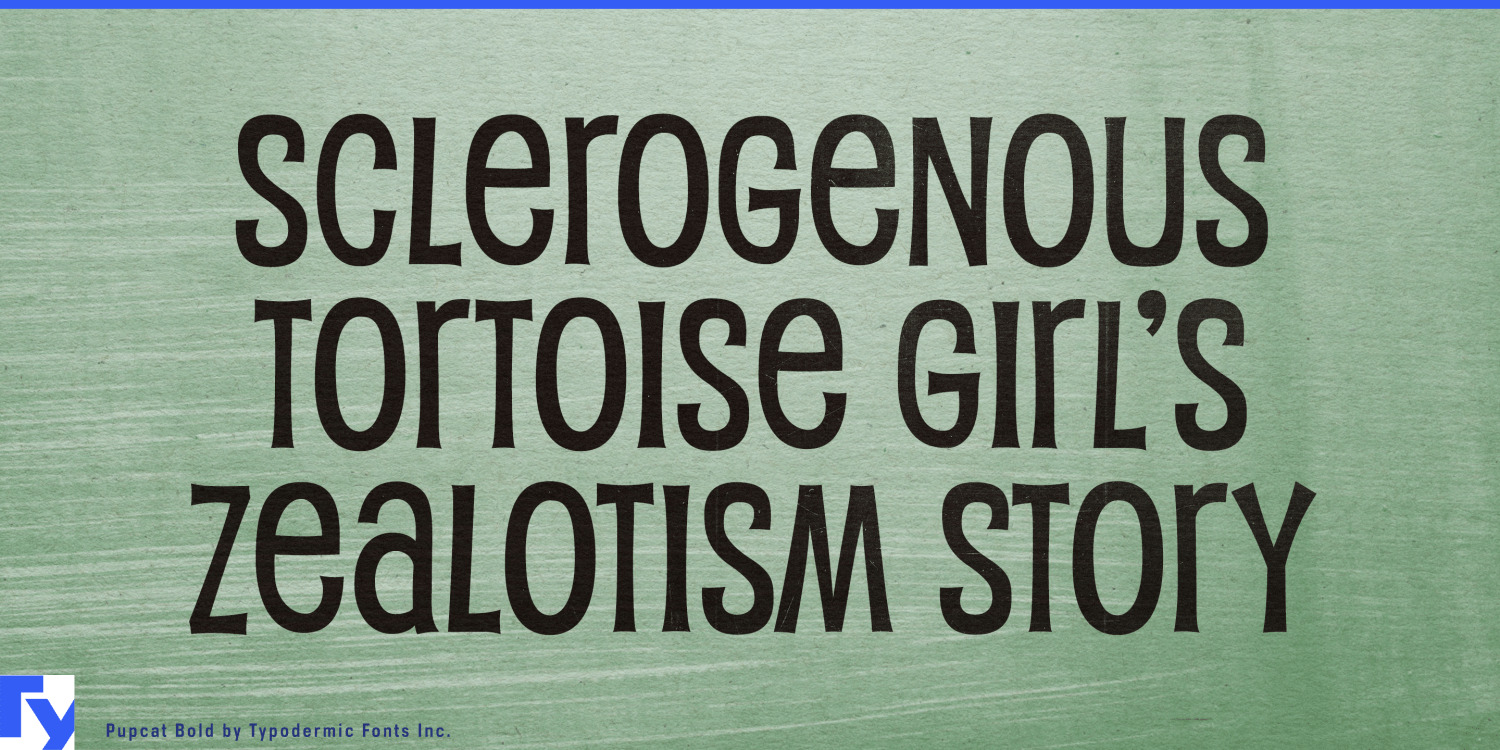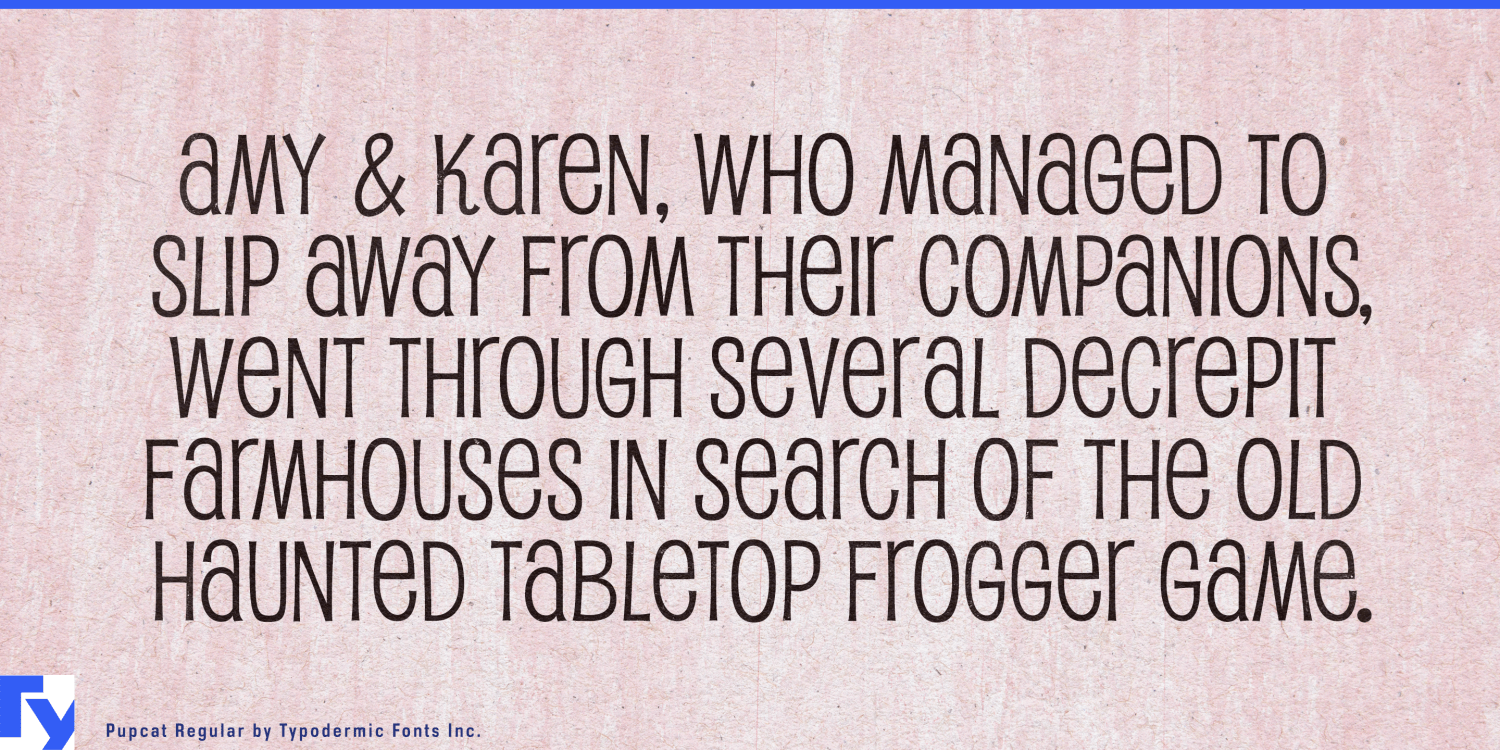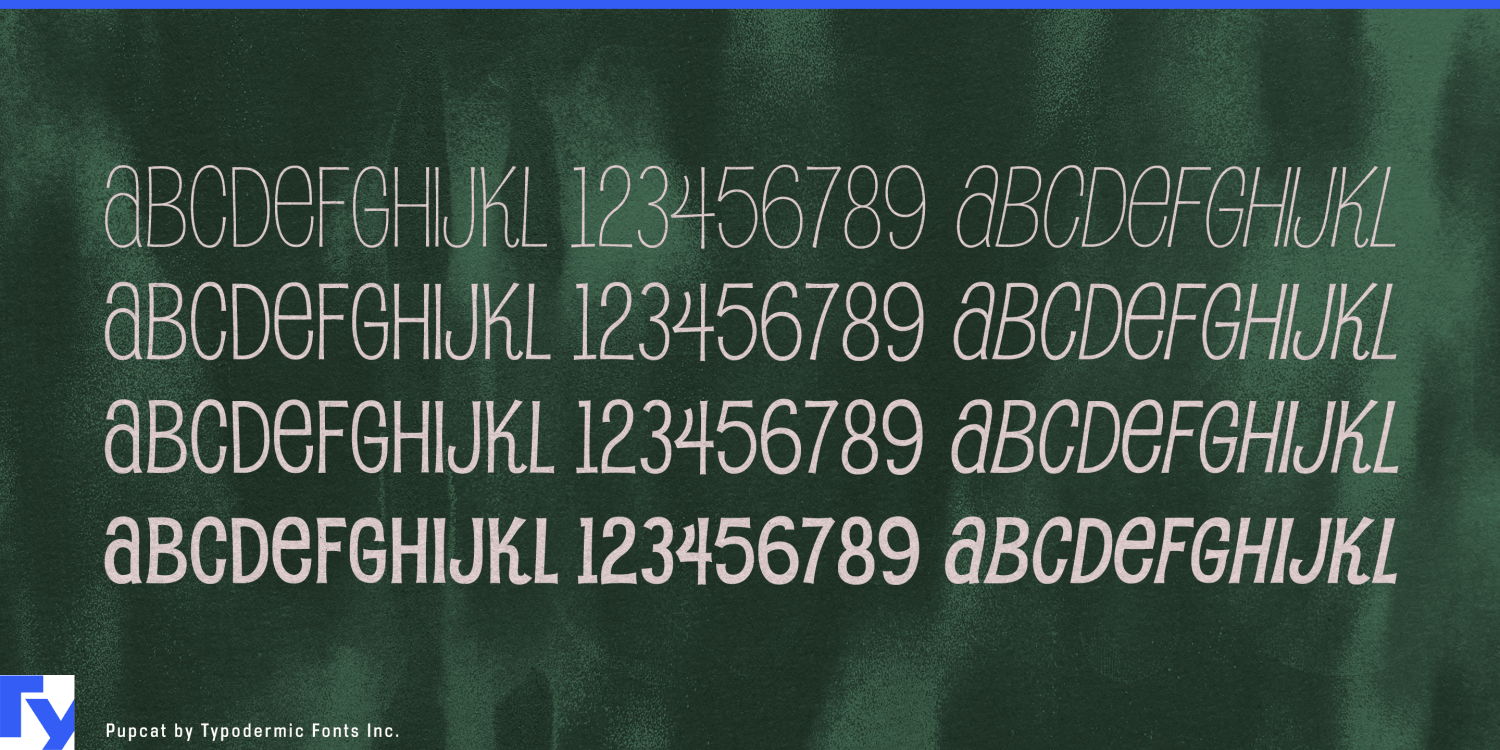
About Pupcat
Ladies and gentlemen, meet Pupcat—the Doris Day of typefaces in a world full of plain-Jane fonts. This is a ticket to a swingin’ soirée, where letters mingle with the carefree abandon of a 1960s beach party. Picture this: You’re…